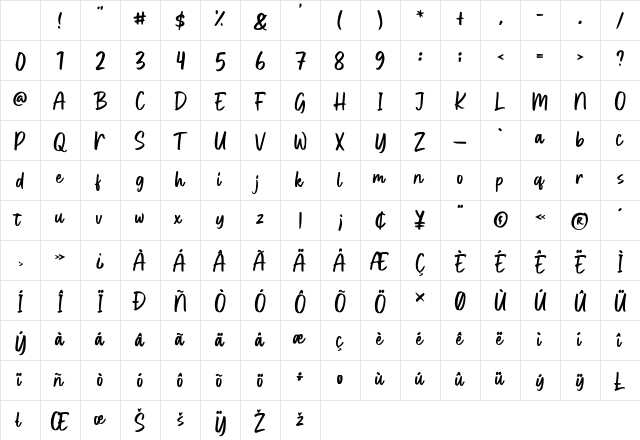
Complete Buckets of Fireflies Regular glyph index. Displaying only characters natively supported by Buckets of Fireflies Regular font.
Buckets of Fireflies is a composed and adaptable typeface that performs quietly and consistently across a wide range of design contexts.